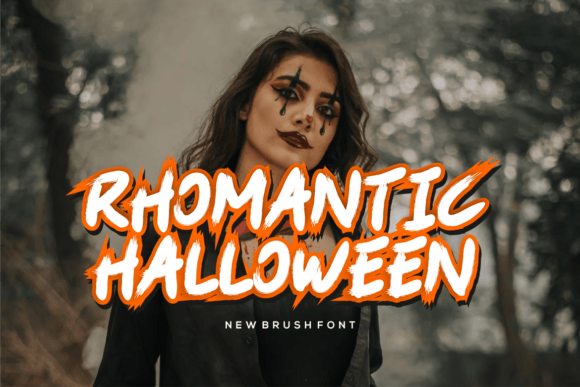
In a realm where the ordinary surrenders to the supernatural, fonts take on a life of their own – a life teeming with mystery and allure. Enter the Rhomantic Halloween Font, a spine-tingling script typeface that will cast a spell on your designs. Unleash the power of this eerie and jagged font as it weaves its dark magic, conjuring an atmosphere that sends shivers down your creative spine.
Picture this: a haunted house, shrouded in darkness, invites you to explore its terrifying depths. The creaking floorboards echo with every step, and an eerie chill runs down your spine. This is the world that Rhomantic Halloween Font brings to life, a world where shadows dance and whispers fill the air.
This font is more than just a collection of letters; it's a portal to a parallel universe, where the macabre and the beautiful intertwine. Its strokes are like strokes of lightning, illuminating the darkness with their unsettling luminescence. With Rhomantic Halloween Font, you have the power to evoke emotions that linger long after the page is closed.
Imagine crafting Halloween-themed invitations that leap off the page, their words whispering secrets of haunted mansions and cursed relics. Design flyers for haunted houses that promise a night of spine-chilling thrills, where every turn reveals a new terror. Create movie posters that transport viewers to a realm of darkness and despair, where the boundaries between reality and nightmare blur.
But the magic of Rhomantic Halloween Font knows no bounds. It's not just confined to Halloween-themed projects. Let this font be your muse for creating logos that exude an aura of mystery, or book covers that hint at tales of the supernatural. Unleash your creativity and explore the depths of darkness, knowing that this font will be your loyal companion, guiding you through the shadows.
Join the ranks of those who dare to embrace the darkness, those who seek to create designs that haunt and mesmerize. Let Rhomantic Halloween Font be your guide, your trusted companion as you journey into the realm of the unknown. Embrace the power of this font, and watch as your designs transform into captivating masterpieces that will leave an everlasting mark on those who behold them.